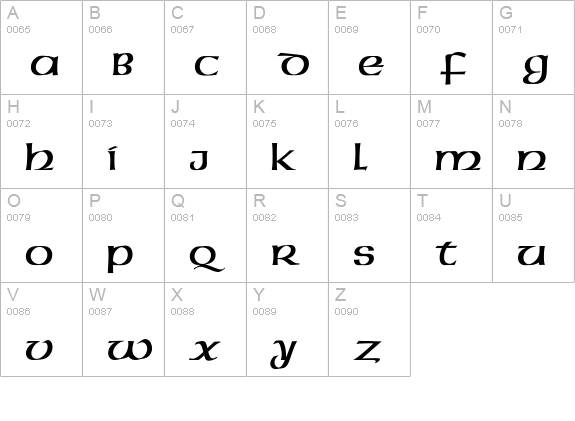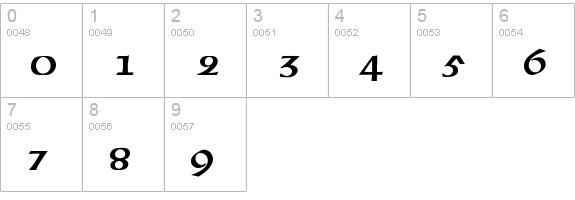
American-Uncial Font Details
The American-Uncial font is a unique and elegant typeface that blends traditional Uncial script with a touch of American flair. Its graceful curves and distinctive letterforms make it a perfect choice for projects that require a touch of sophistication and charm. The American-Uncial font is versatile and can be used for a variety of design purposes, from invitations and greeting cards to signage and branding. Best of all, the American-Uncial font is completely free to download at FontsMarket.com. This means that you can easily access this beautiful typeface and use it in your projects without any cost. Whether you're a professional designer or a hobbyist looking for a stylish font to enhance your work, the American-Uncial font is a fantastic choice that won't break the bank. Download it today and add a touch of timeless elegance to your designs.